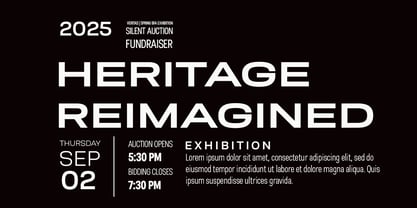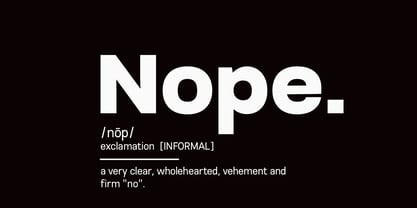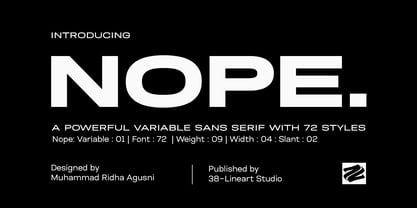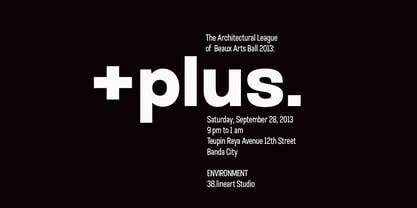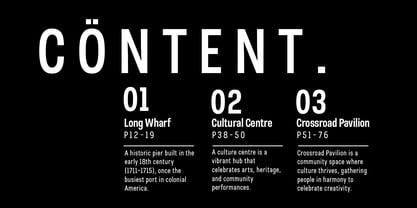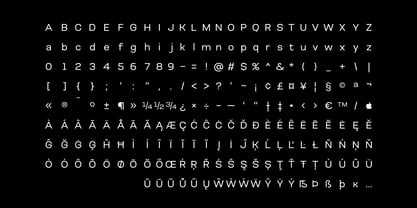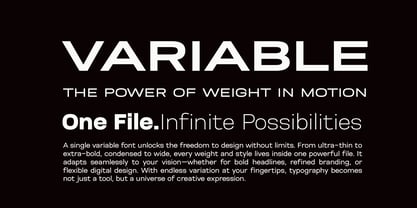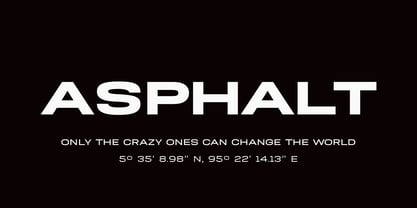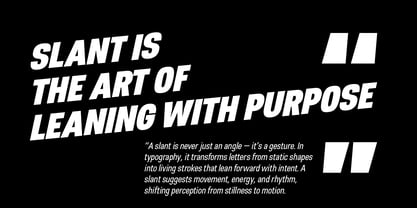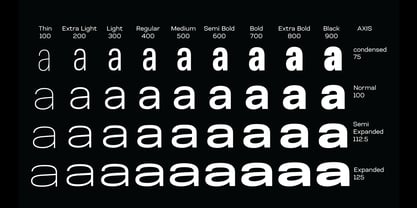
Nope
The Nope Font Family was designed by Muhammad Ridha Agusni and published by 38-lineart. Nope contains 73 styles and family package options. More about this family
Nope – A Variable Sans Serif with Limitless Potential Nope is more than just a typeface. It is a modern typographic system designed for versatility and impact. With 72 carefully crafted styles in a single variable font, it offers seamless flexibility from thin elegance to bold power, allowing designers to explore an infinite spectrum of visual expression. Built on geometric precision with a human touch, Nope adapts effortlessly to both striking headlines and clean, readable text. Its wide range of OpenType features, alternate characters, and numeral sets ensures professional quality and creative freedom in every context. Perfect for branding, editorial design, posters, signage, digital interfaces, and motion graphics, Nope delivers typography that is bold, progressive, and timeless. More than a font, it is a creative tool built for those who seek both functionality and strong visual identity. One file. Infinite possibilities.
38-Lineart Studios is an Indonesian-based type foundry owned and managed by Muhammad Ridha Agusni. What began in 2018 as a hobby, inspired by his background in architecture, has grown into a dedicated pursuit of font creation. Muhammad brings his architectural precision to type design, shaping each letter with care and purpose.Working from his home, Muhammad's design process is grounded in simplicity and focus. In the comfort of his familiar surroundings, he applies his skills to create fonts, appreciating the straightforward pleasures that come with his work.